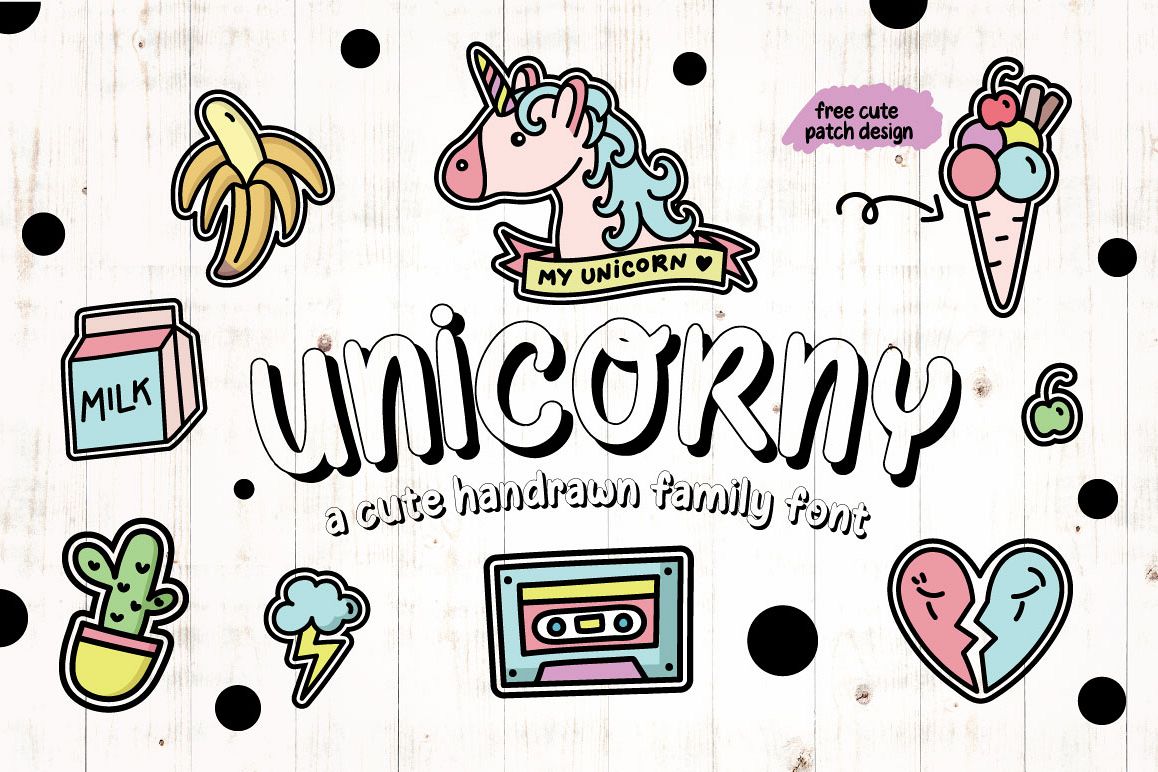
Unicorny Typeface
Hi There! Unicorny is a fun handrawing font with 2 different sytles. It is suitable for fun,cute or kids friendly design. You will get :
1. Unicorn Regular
2.Unicorn Shadow